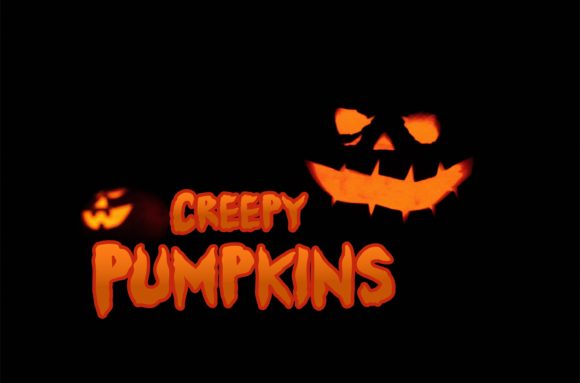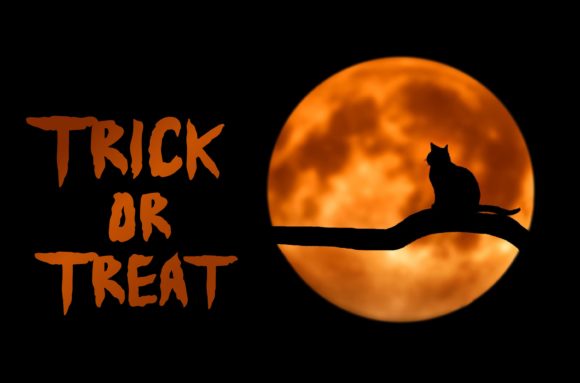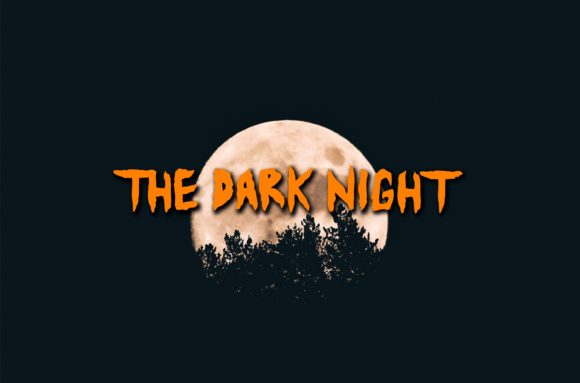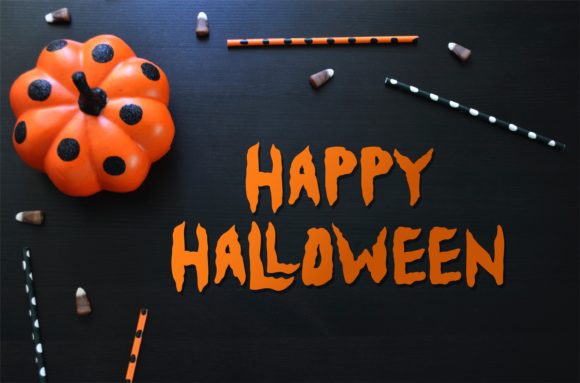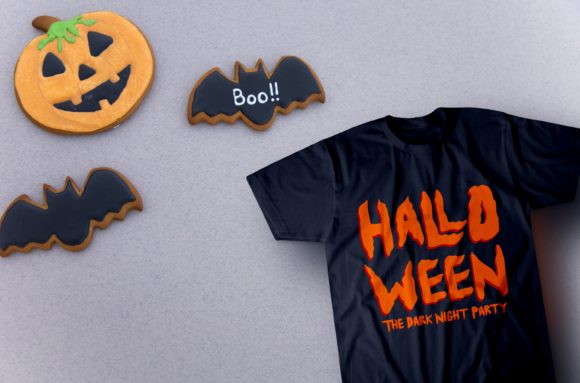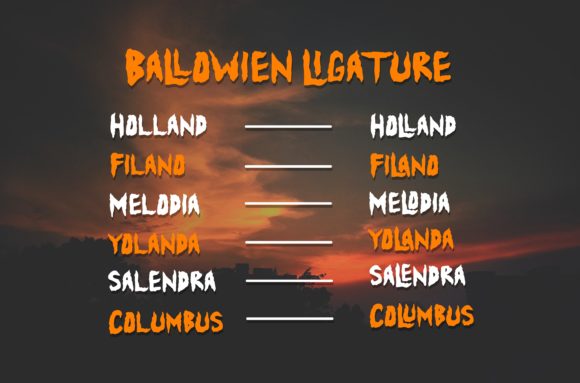
Ballowien Font: Unleash Your Creativity with a Spooky Halloween Theme
Are you a designer or crafter looking for a unique font to add a touch of spookiness to your designs? Look no further than the Ballowien Font! This display font is specifically designed with a Halloween theme in mind, making it perfect for creating spectacular designs that will leave a lasting impression.
What is Ballowien Font?
Ballowien Font is a one-of-a-kind display font that embodies the spirit of Halloween. With its eerie and mysterious vibe, this font is sure to add a touch of whimsy and fun to any design project. Whether you’re creating invitations, posters, or social media graphics, Ballowien Font is the perfect choice for designers and crafters who want to create eye-catching and memorable designs.
Key Features of Ballowien Font
• Unique Design: Ballowien Font boasts a unique and quirky design that sets it apart from other fonts. Its irregular shapes and bold lines give it a distinctive look that’s sure to grab attention.
• Halloween Theme: As a Halloween-themed font, Ballowien Font is perfect for creating designs that are spooky, kooky, and altogether spooky!
• Display Font: Ballowien Font is a display font, making it ideal for headlines, titles, and short phrases. Its bold and eye-catching design ensures that your text will stand out.
Creative Ways to Use Ballowien Font
Ballowien Font is a versatile font that can be used in a variety of creative ways. Here are a few ideas to get you started:
• Halloween Invitations: Create spooky and fun invitations for Halloween parties, trick-or-treat events, or haunted house attractions.
• Social Media Graphics: Use Ballowien Font to create eye-catching social media graphics that will grab attention and drive engagement.
• Poster Design: Design bold and eye-catching posters for Halloween events, concerts, or festivals.
• Crafting Projects: Use Ballowien Font to add a touch of Halloween whimsy to your crafting projects, such as scrapbooking, card making, or DIY decorations.
Tips for Using Ballowien Font
To get the most out of Ballowien Font, here are a few tips to keep in mind:
• Use it Sparingly: Ballowien Font is a bold and eye-catching font, so use it sparingly to avoid overwhelming your design.
• Pair it with Other Fonts: Pair Ballowien Font with other fonts to create visual interest and add depth to your design.
• Experiment with Colors: Experiment with different colors to find the perfect combination that complements your design.
Ballowien Font is a unique and versatile font that’s perfect for designers and crafters who want to add a touch of spookiness to their designs. With its eerie and mysterious vibe, this font is sure to grab attention and leave a lasting impression. Whether you’re creating Halloween-themed designs or just want to add a touch of whimsy to your projects, Ballowien Font is a great choice. So why wait? Get creative with Ballowien Font and unleash your inner designer!